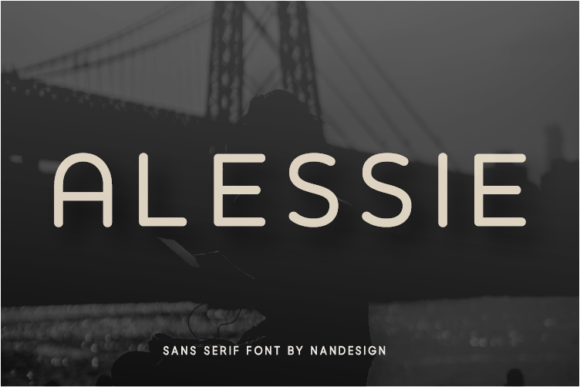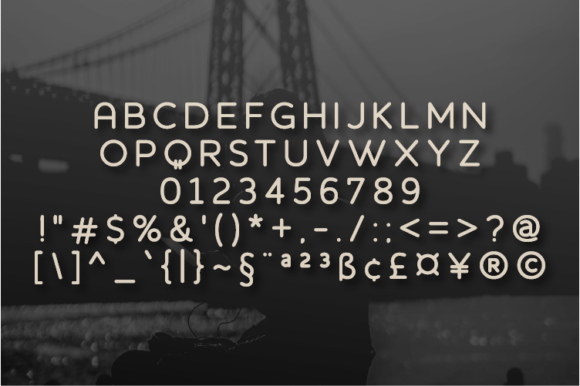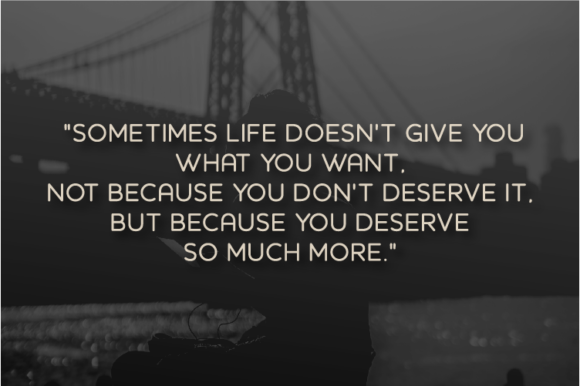
Alessie Font
Alessie is a minimal, round lettered sans serif font. It can effortlessly be matched to an incredibly large set of projects, so add it to your creative ideas and notice how it makes them stand out!